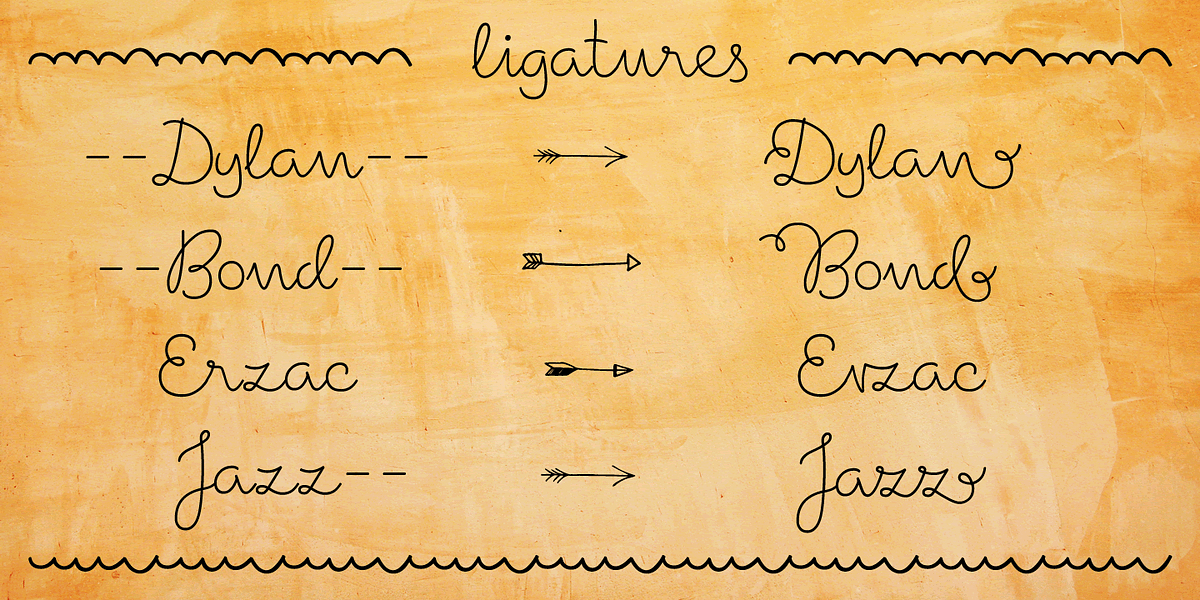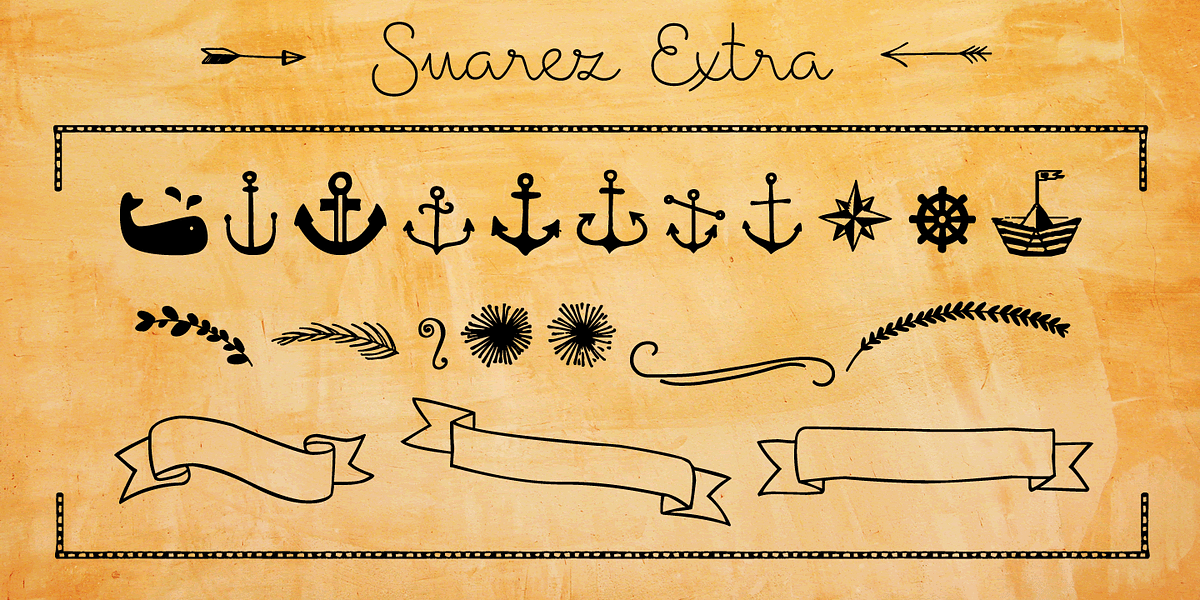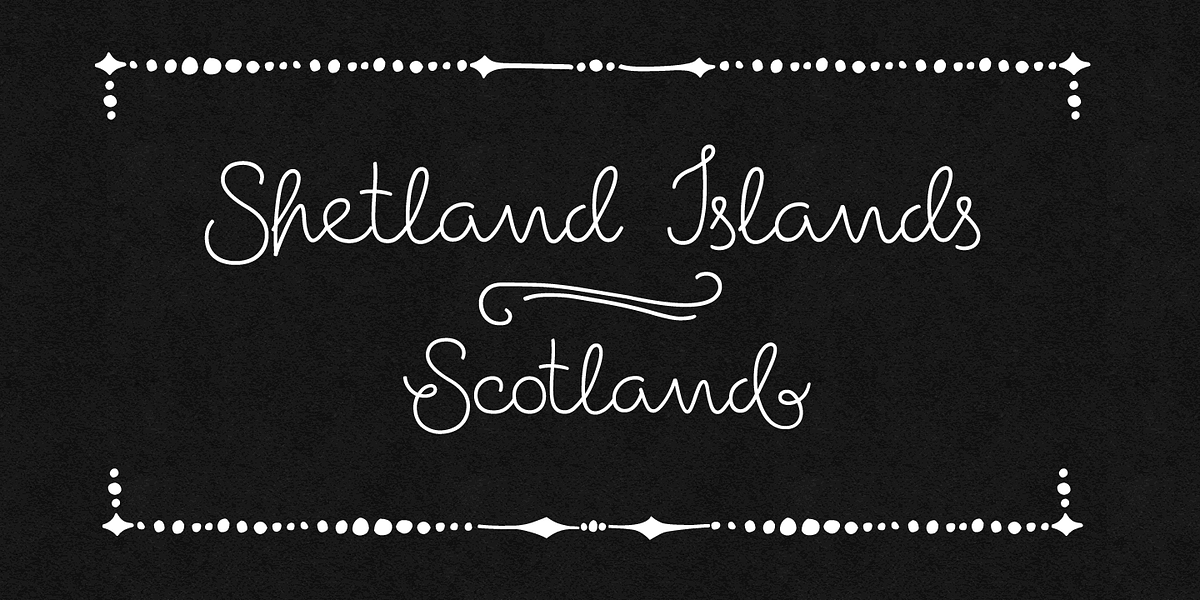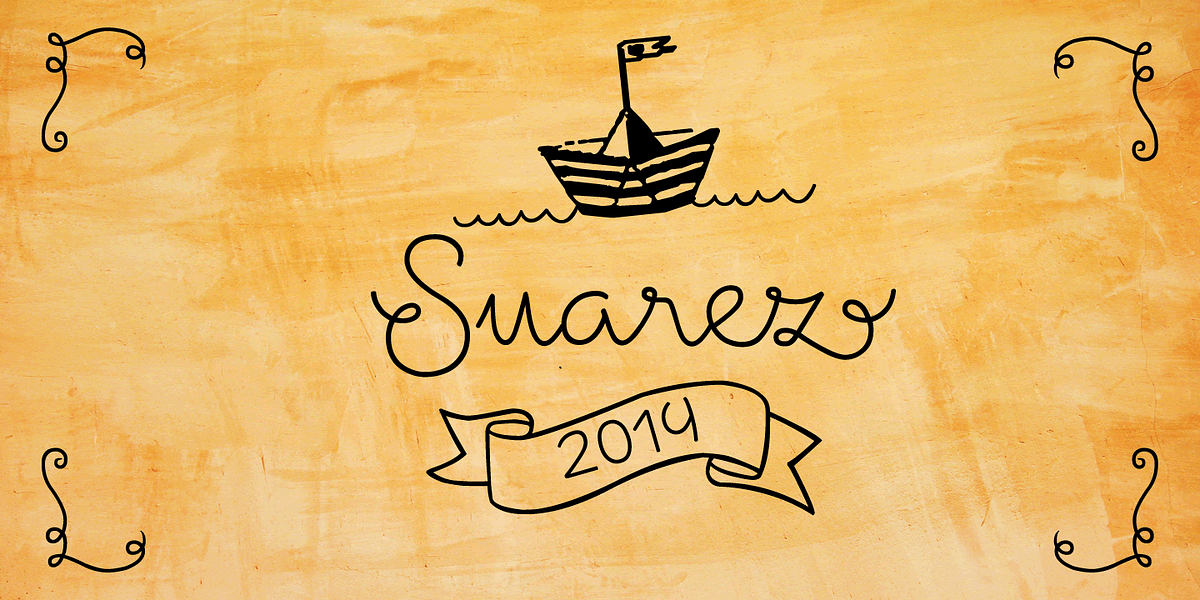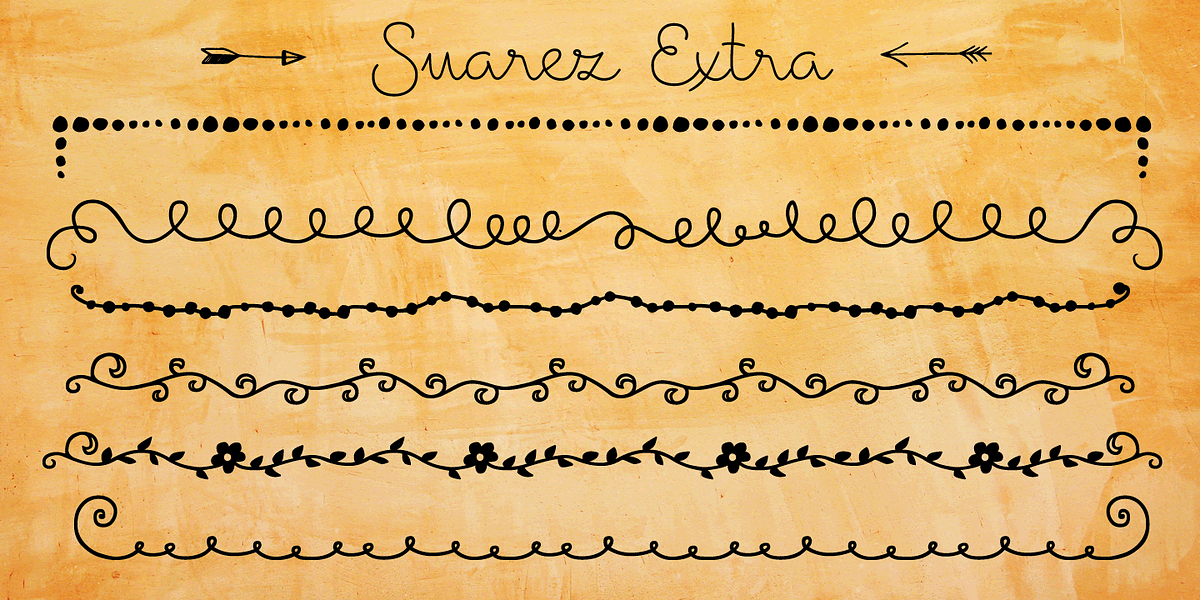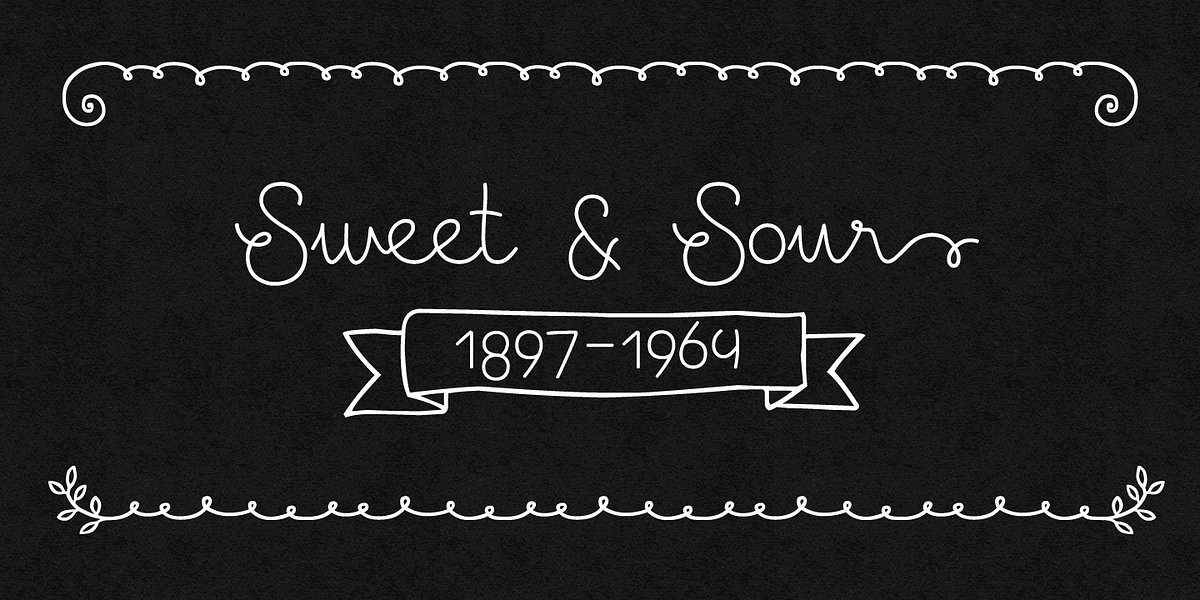
Suarez
Suarez is a casual hand script font designed for readability and visual appeal. Its connected letterforms and ligatures create a flowing, natural handwriting style. The font supports a wide range of languages and is suitable for various applications like invitations, greeting cards, posters, advertising, branding, books, and menus.